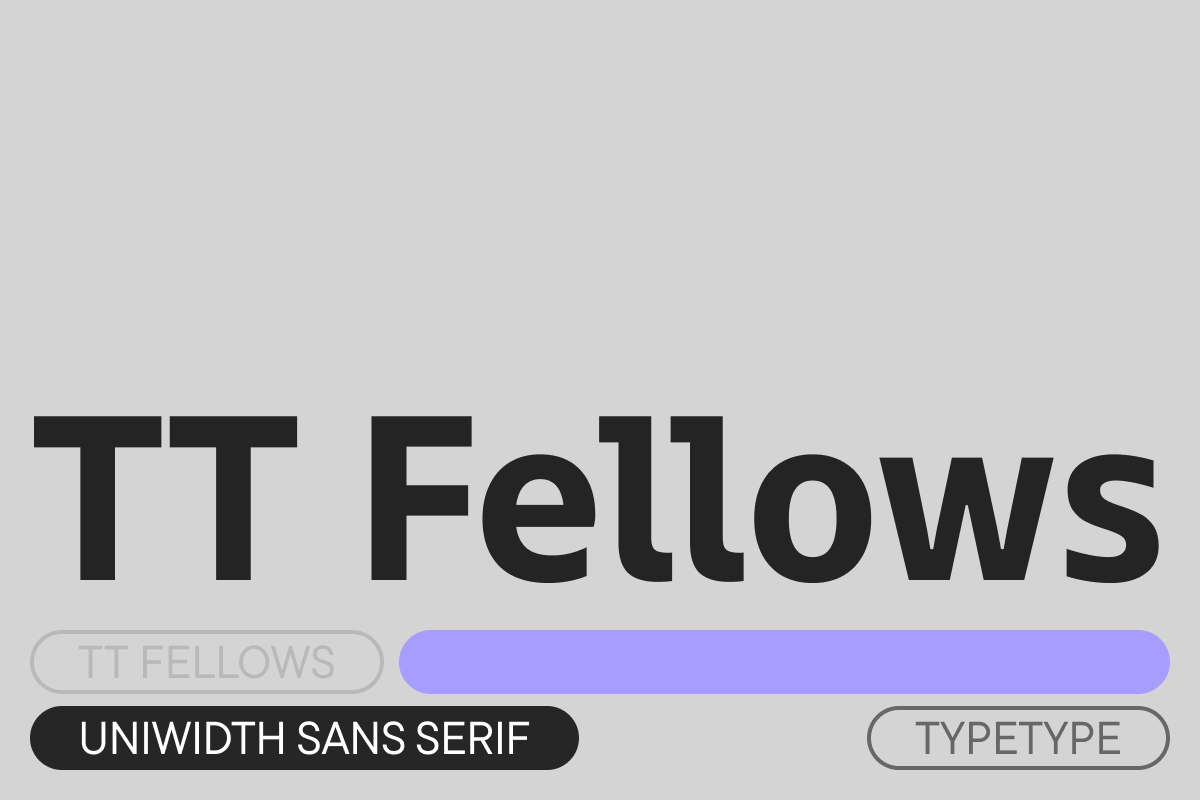
TT Fellows Bold Italic
TT Fellows is a humanist sans-serif with open forms and mechanistic motifs. The character of this typeface appears calm and neutral at first glance, however its mood can change. In bold weights it looks soft and friendly, while in thin weights it becomes more restrained and laconic. A key advantage of TT Fellows is its uniwidth design, ensuring layouts remain consistent when switching between different font styles.